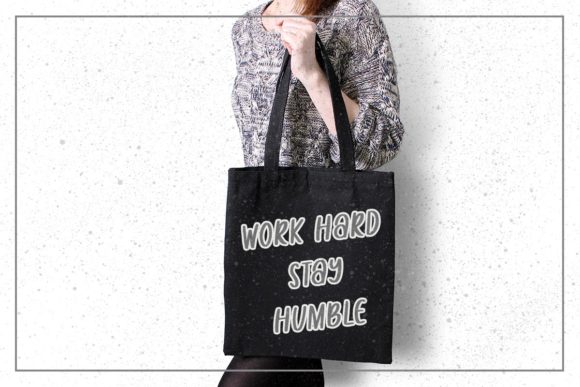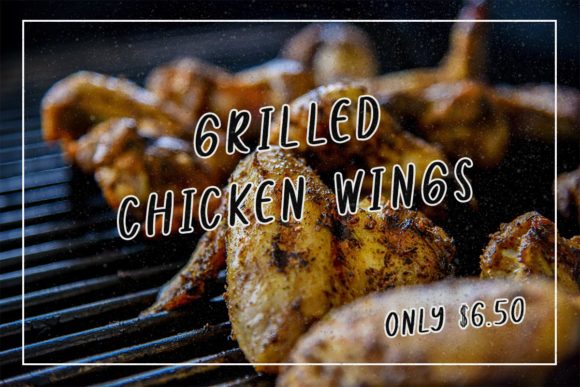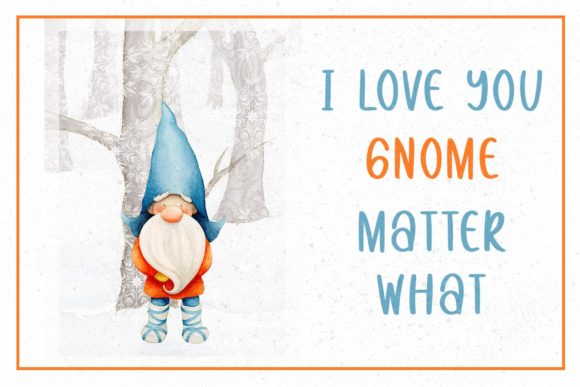
Introduction to Potato Peel Font
Have you ever been working on a creative project and felt like something’s missing? Maybe you’re designing a logo for a new business or crafting a beautiful quote for a loved one, but the text just doesn’t pop. That’s where the right font comes in – and we’ve got just the thing. Say hello to the Potato Peel Font, a stunning handwritten font that’s sure to elevate your designs to the next level.
This gorgeous font boasts a casual look and smooth edges, making it perfect for a wide range of projects. Whether you’re creating a branding identity, designing stationery, or crafting a beautiful quote, the Potato Peel Font is sure to shine. With its high-quality design and transparent background, it’s the perfect addition to any creative project. And the best part? It’s a free download, making it an invaluable resource for designers of all levels.
Key Features of Potato Peel Font
• Unique, hand-drawn design with a distressed texture, perfect for creative projects
• High-quality, scalable font suitable for both digital and print use
• Perfect for adding a touch of organic, earthy feel to your design projects
Honest Review: Potato Peel Font
As a designer, I’m always on the lookout for unique and high-quality design resources to elevate my creative projects. The Potato Peel Font caught my attention, and I decided to give it a try. Here’s my honest review.
• High-quality design: The font is well-designed, with smooth lines and a natural, earthy feel.
• Limited character set: The font only includes a limited character set, which may not be suitable for complex text-based projects.
• No bold or italic options: The font does not offer bold or italic options, which may limit its use in certain situations.
Overall, I’m impressed with the Potato Peel Font. It’s a great addition to any designer’s toolkit, and it’s perfect for creative projects that require a unique, earthy feel. While it may have some limitations, it’s still a valuable resource that’s worth considering.
With its unique and creative style, the Potato Peel Font is a valuable addition to any design library.
By incorporating the Potato Peel Font into your design arsenal, you’ll be able to create visually striking and engaging designs that truly stand out. Its versatility and unique aesthetic make it an excellent choice for a wide range of projects, from digital displays to print materials. So why not give it a try? Download the Potato Peel Font today and discover a whole new world of creative possibilities.